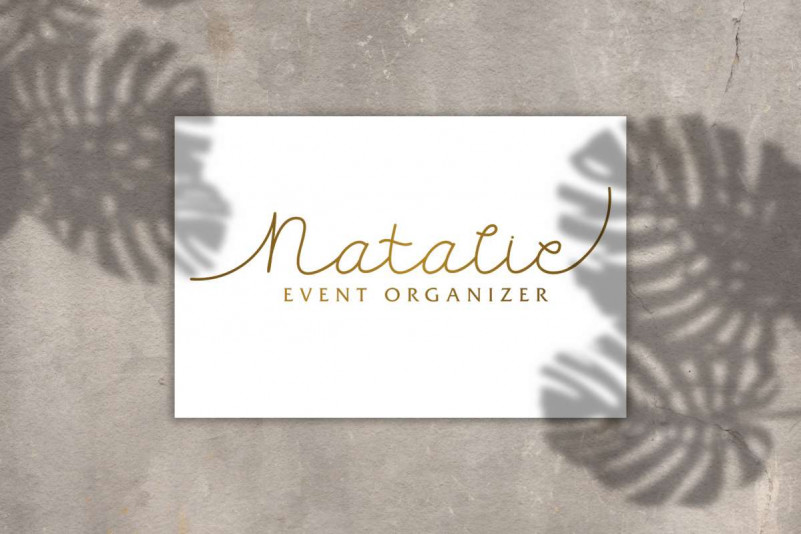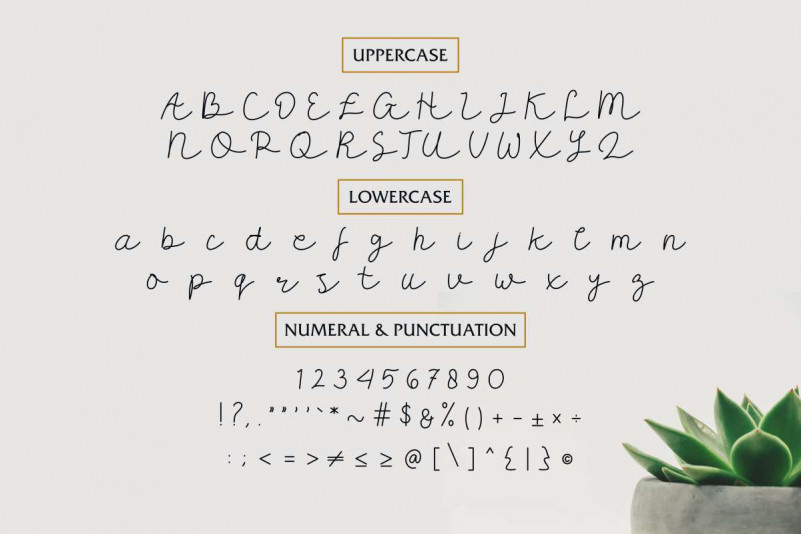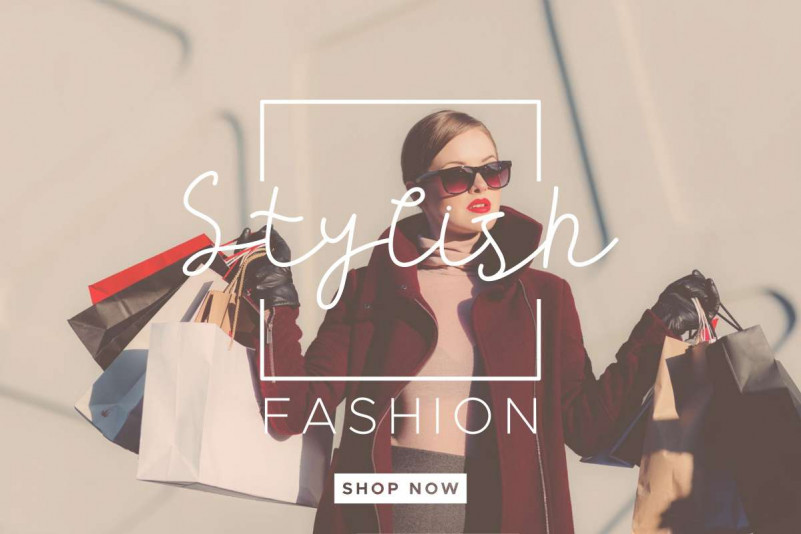
Carllis Script Font
Hola everybody! Please meet our newest font : Carllis Script! This is a new script handwritten style font. It has a beautiful and stylish glyphs. Will be perfect for any designs projects.